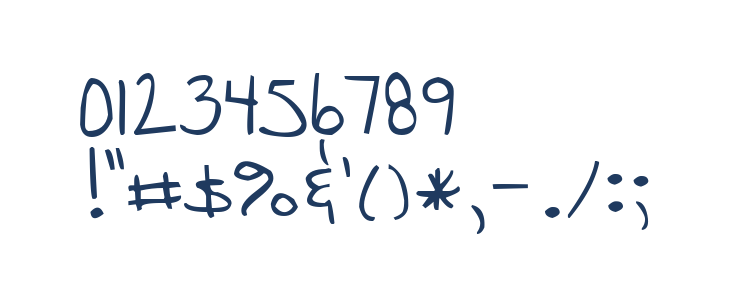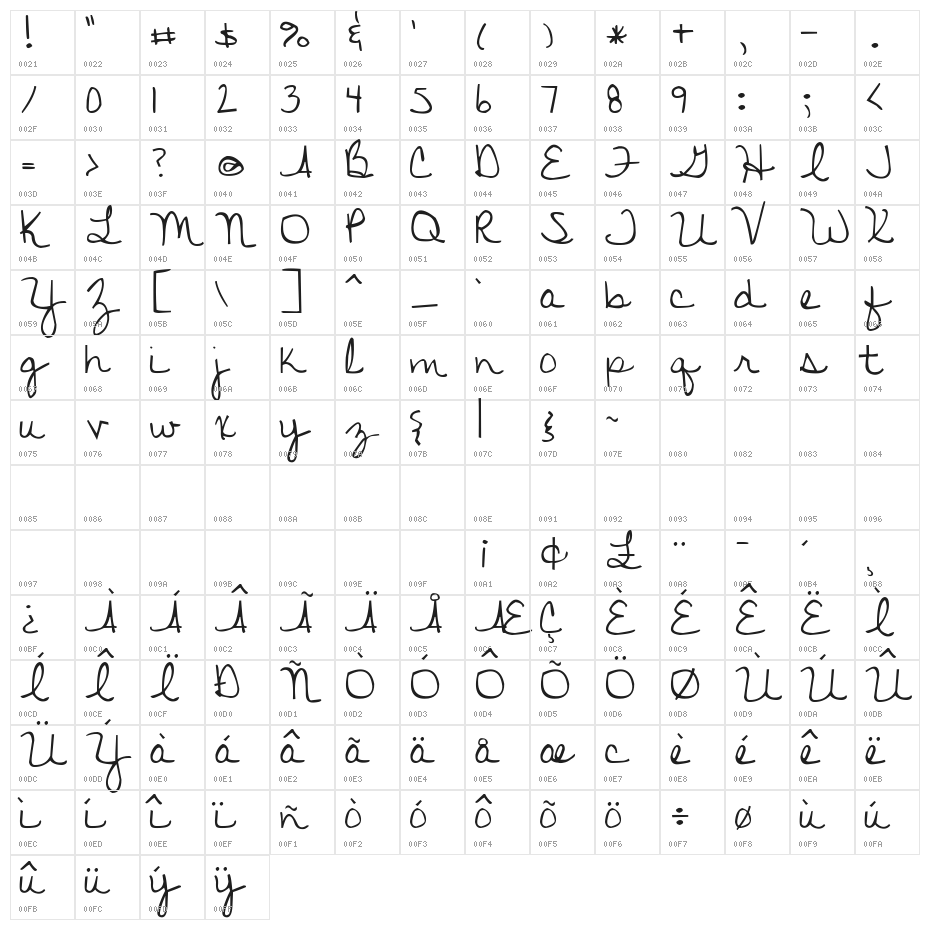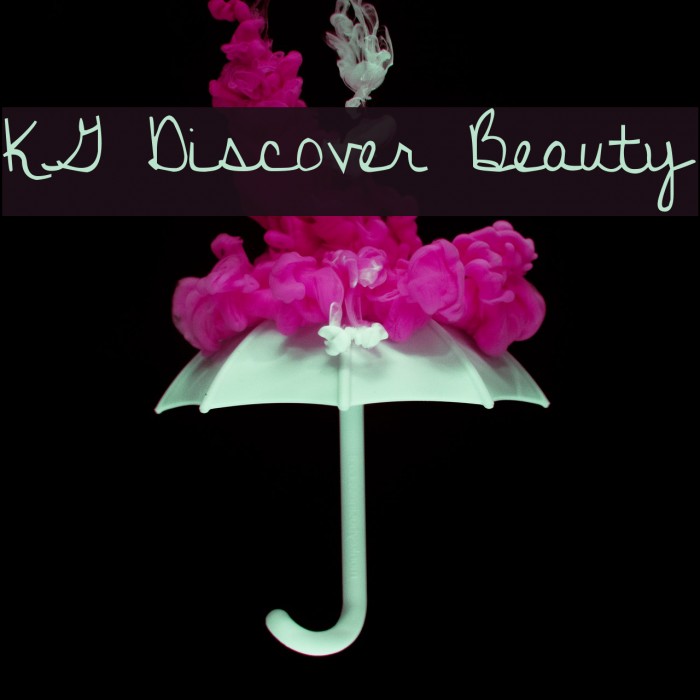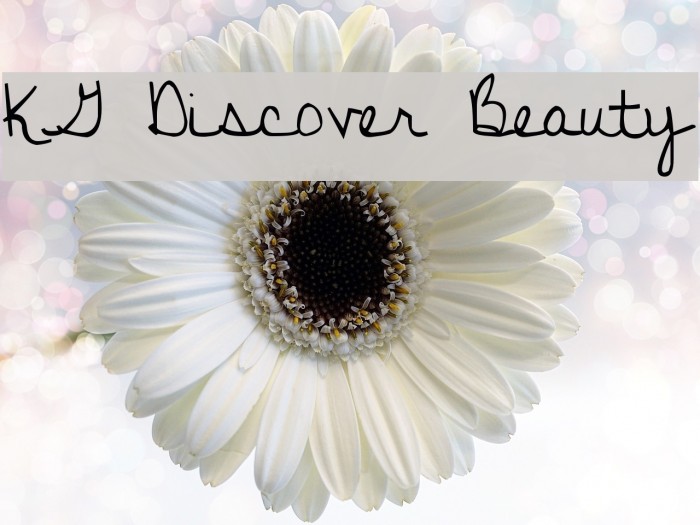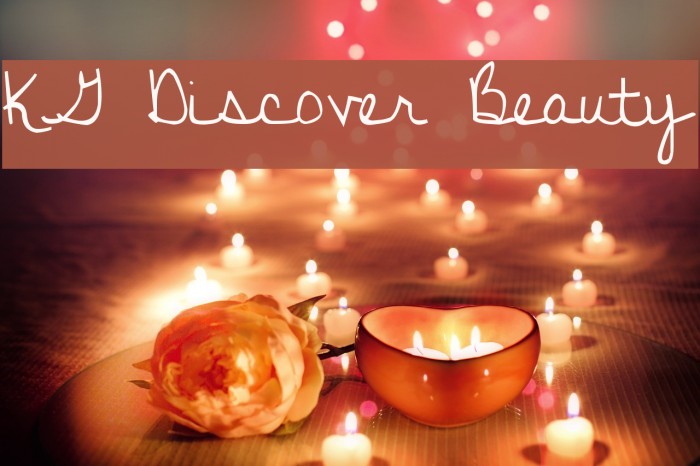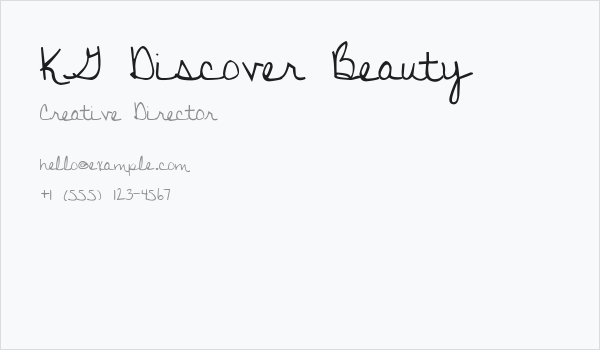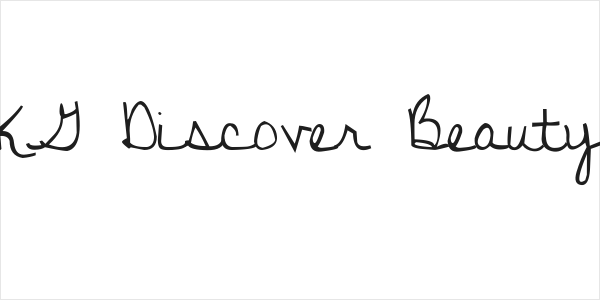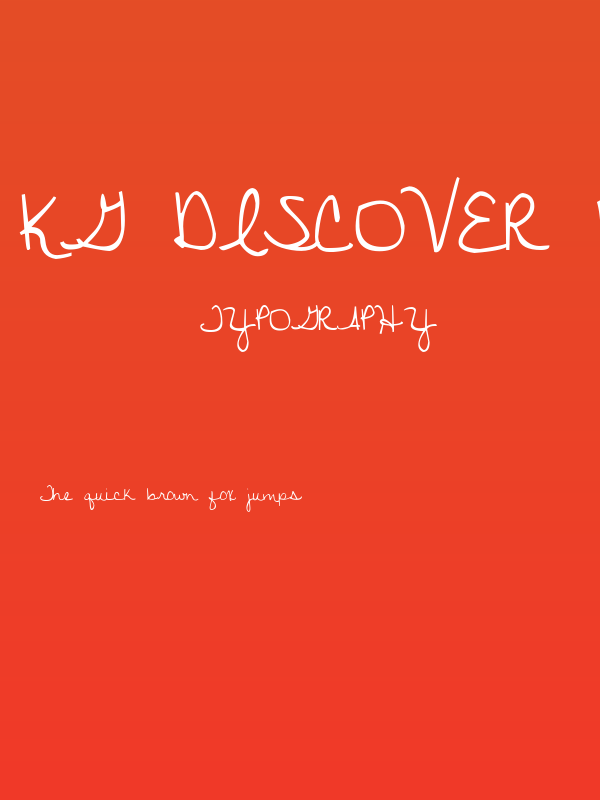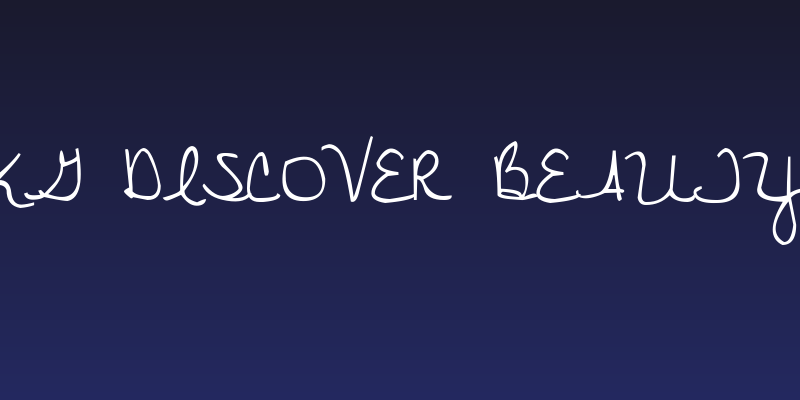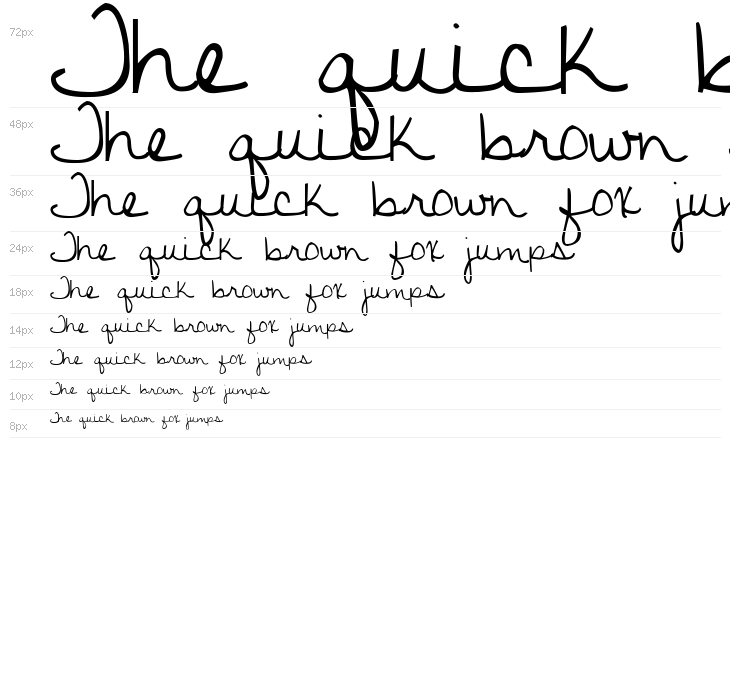
KG Discover Beauty Font
KG Discover Beauty Description
This font features a playful and whimsical handwritten style, characterized by its fluid and flowing letterforms. The uppercase letters exhibit a unique blend of curves and angles, giving them a lively and dynamic appearance. The lowercase letters maintain a consistent style, with some letters extending below the baseline, adding to the font's casual and friendly feel. The numerals are bold and clear, ensuring readability while maintaining the overall playful aesthetic. Special characters are thoughtfully designed to match the font's style, making it versatile for various uses. The font's informal and approachable nature makes it suitable for creative projects that require a personal touch.
| Use Case | Headlines, Creative projects, Informal communications |
| Proposed Projects | Ideal for greeting cards, invitations, children's books, and creative branding projects. |